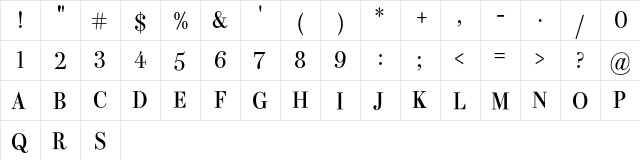
Ironbridge Roman
Design Context for Ironbridge Typeface
Ironbridge is a composed and adaptable typeface that performs quietly and consistently across a wide range of design contexts.